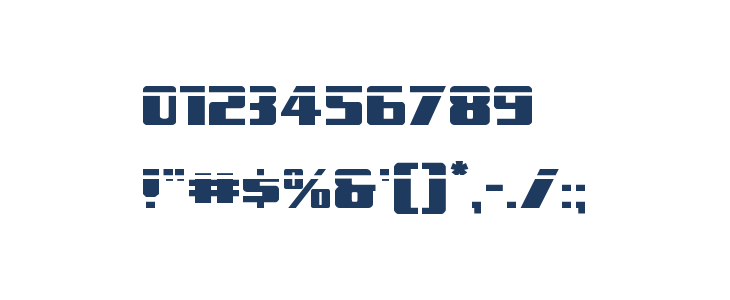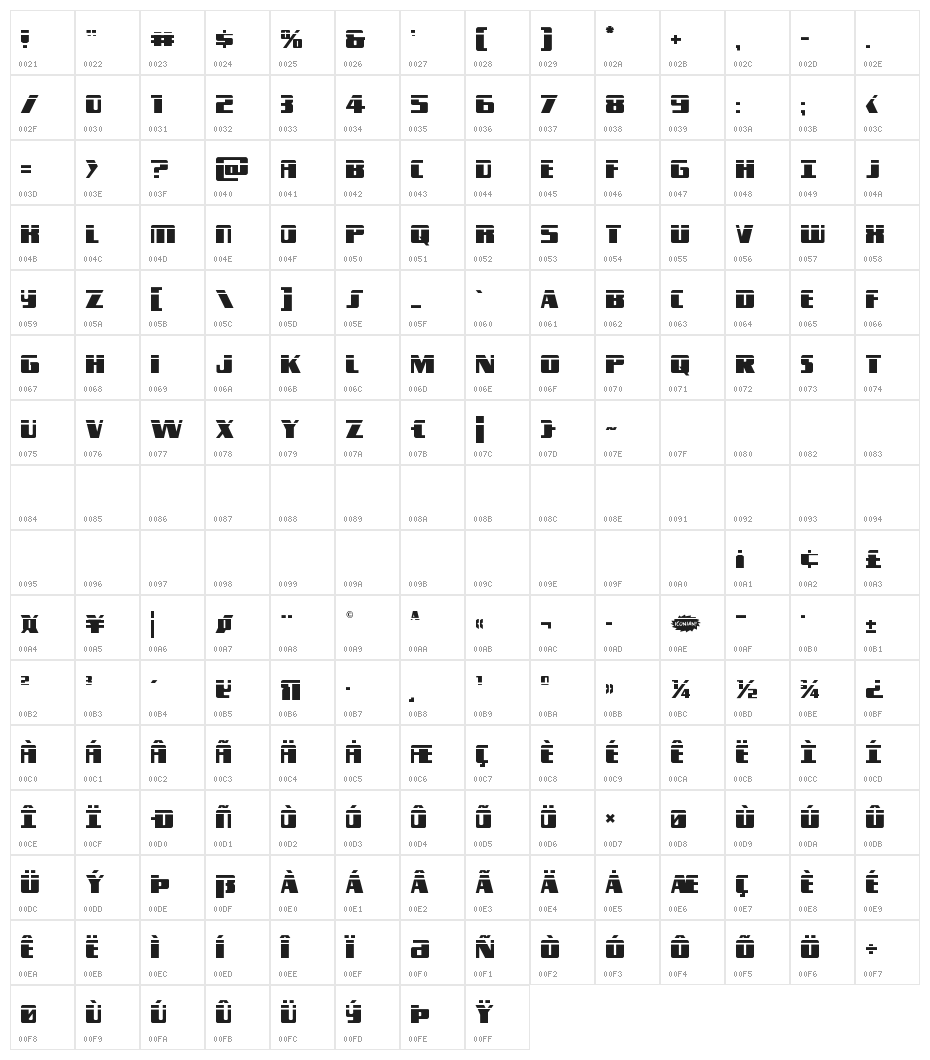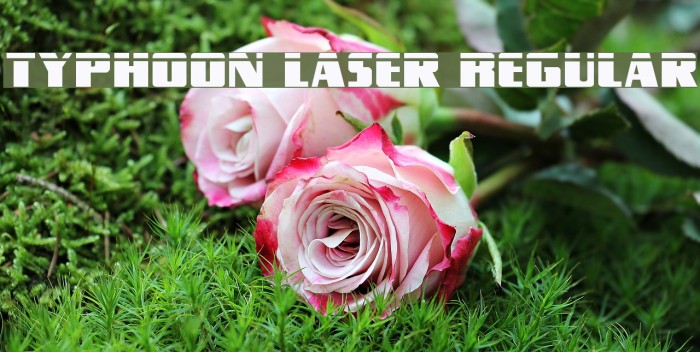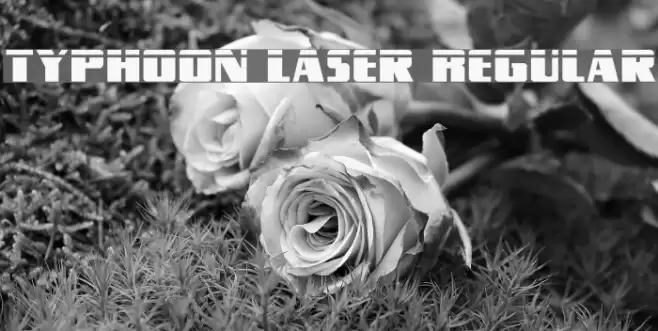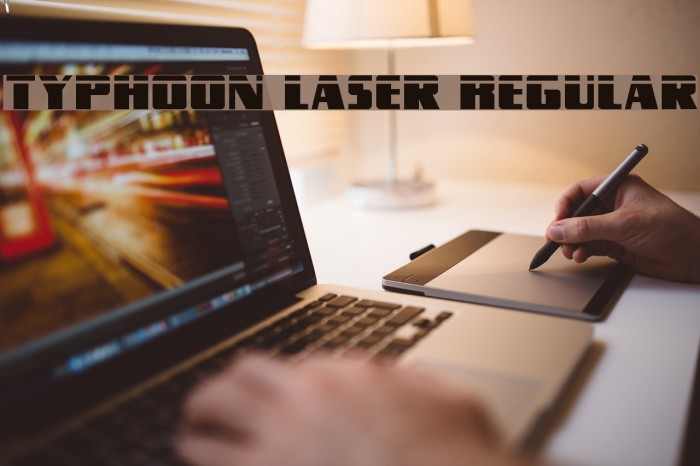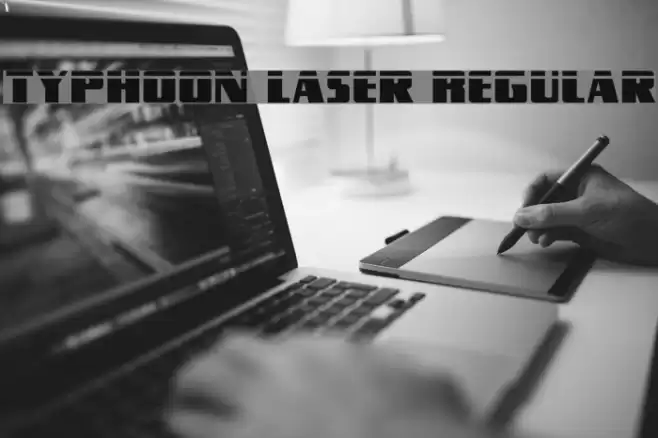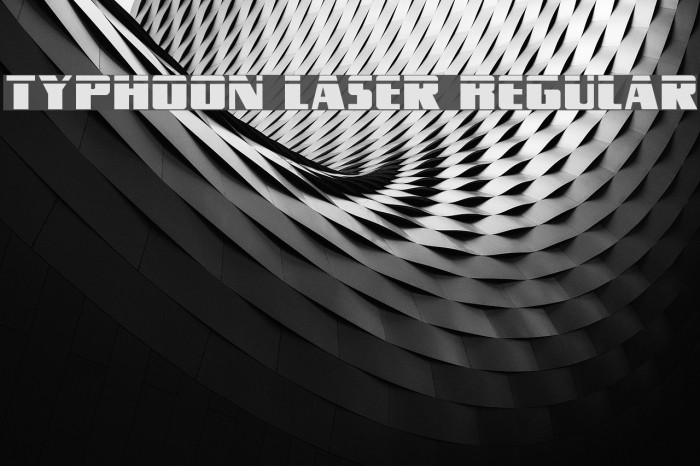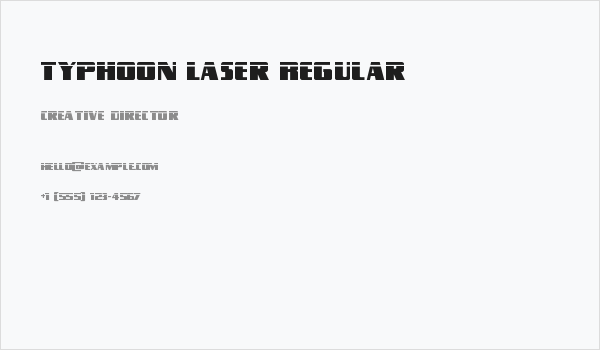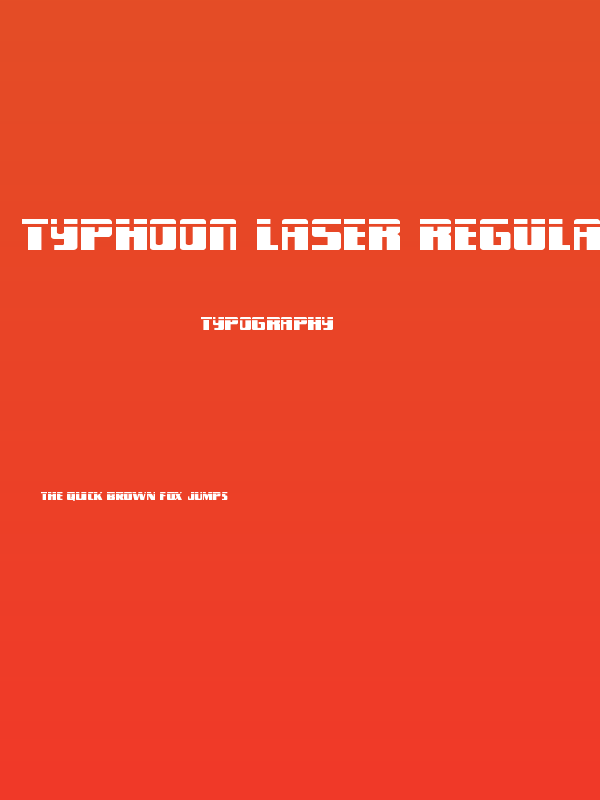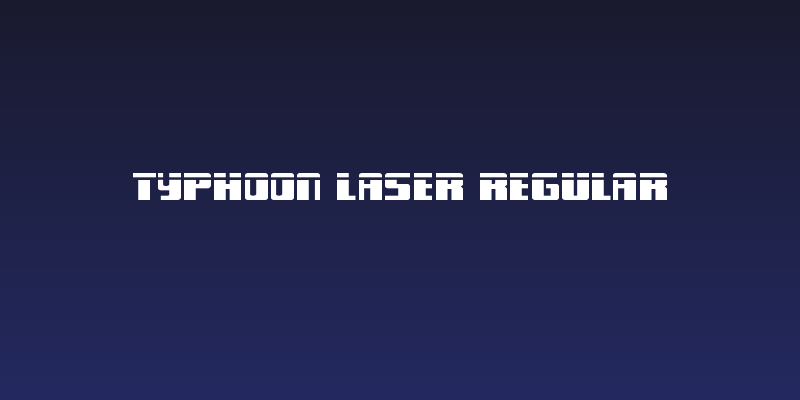
Typhoon Laser Regular Font
Typhoon Laser Regular Description
This font features a bold and futuristic design with a strong geometric structure. The characters are blocky and angular, giving it a distinct, industrial feel. The uppercase letters are particularly striking, with sharp edges and a uniform height that creates a cohesive look. The numbers and special characters maintain this bold aesthetic, ensuring consistency across all elements. The font's unique style makes it stand out, ideal for projects that require a modern and impactful visual presence.
| Proposed Projects | Ideal for use in technology branding, video game titles, sci-fi movie posters, and modern advertising campaigns. |